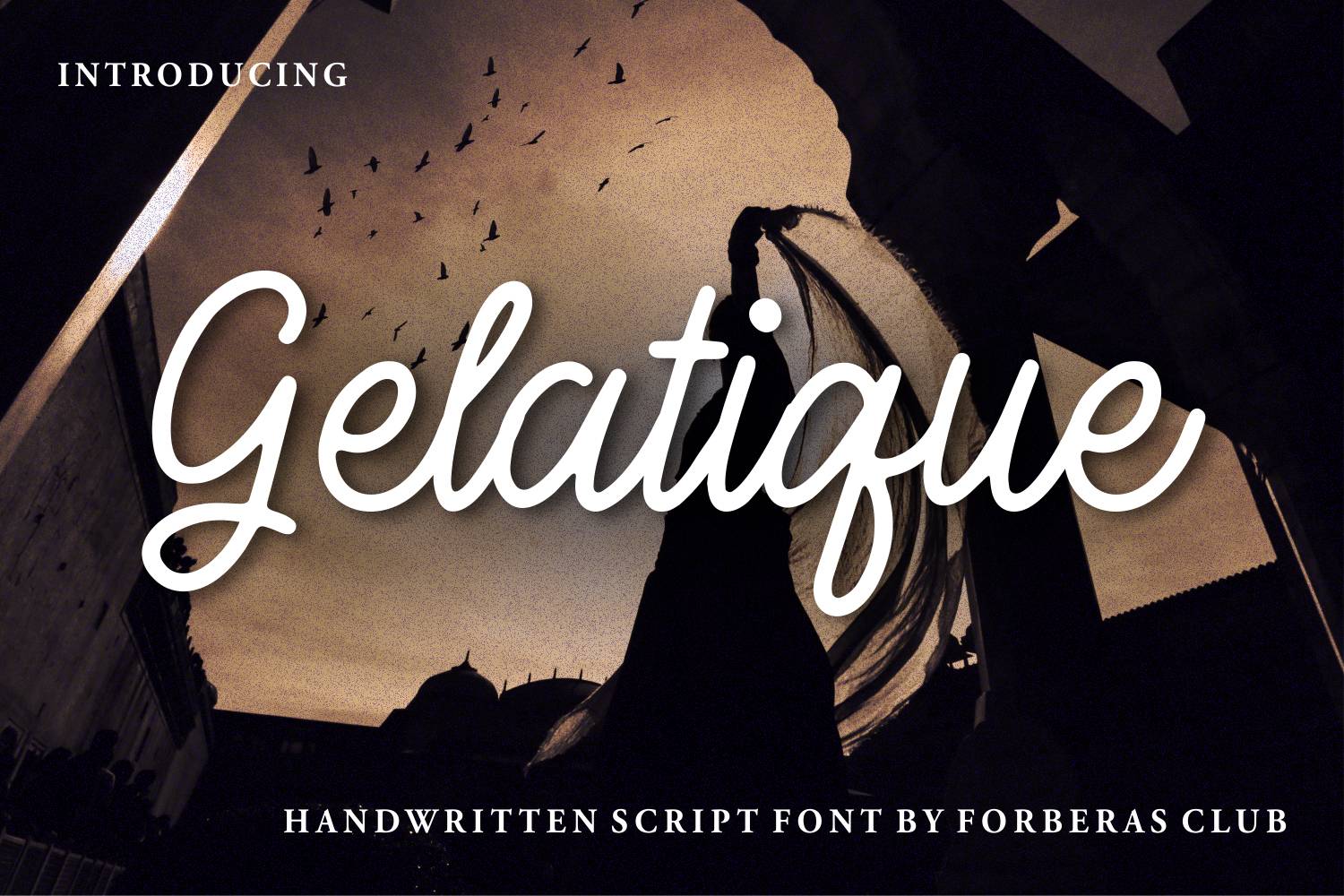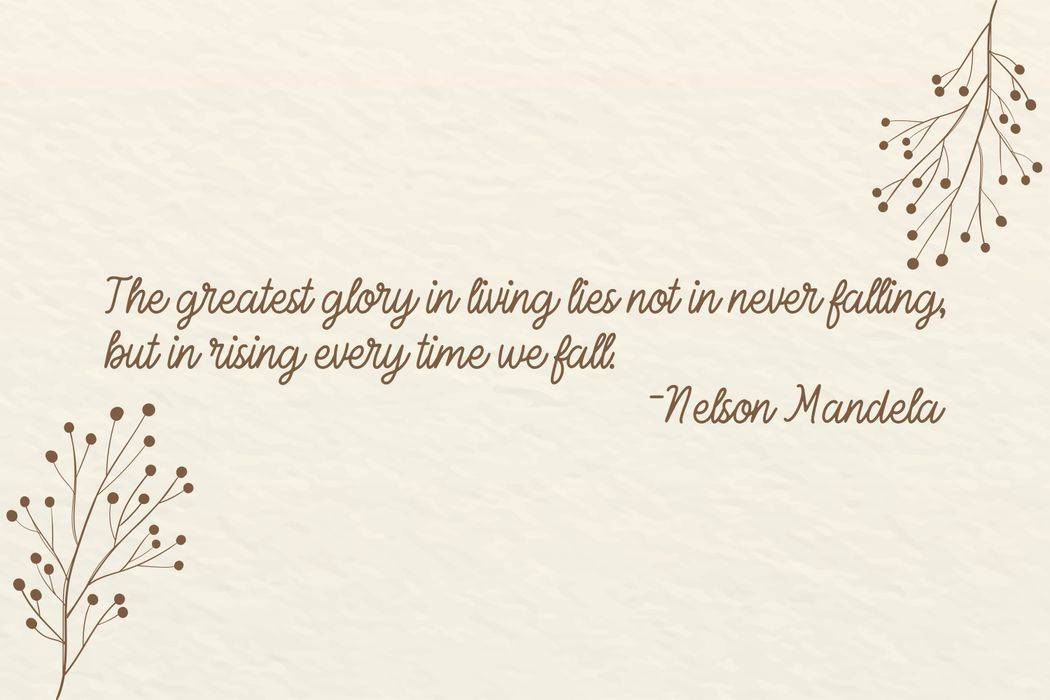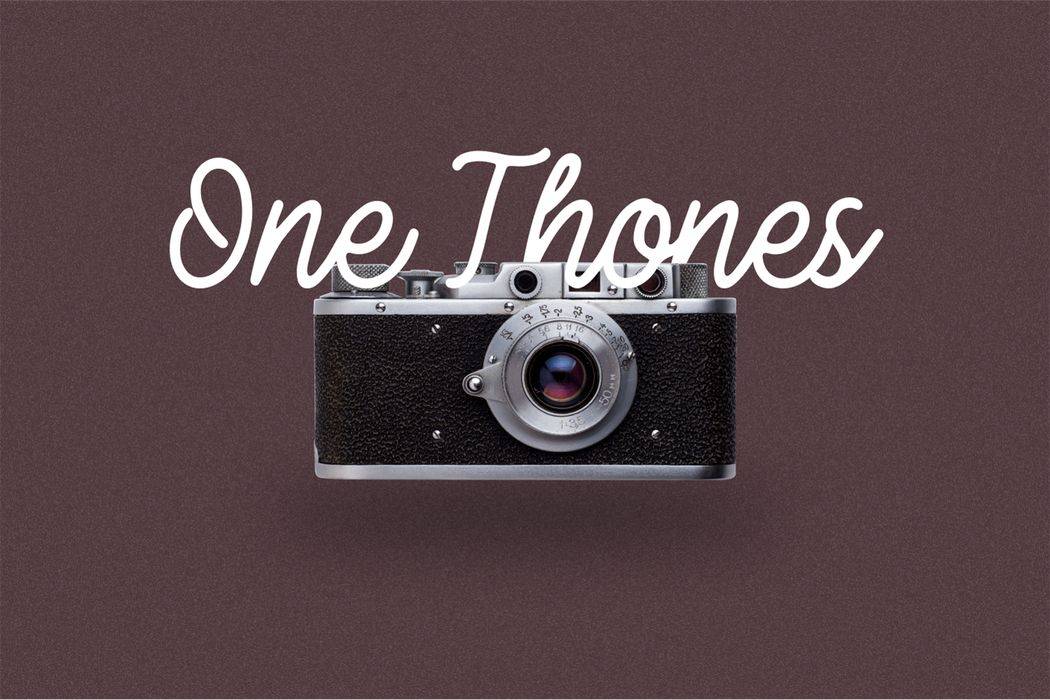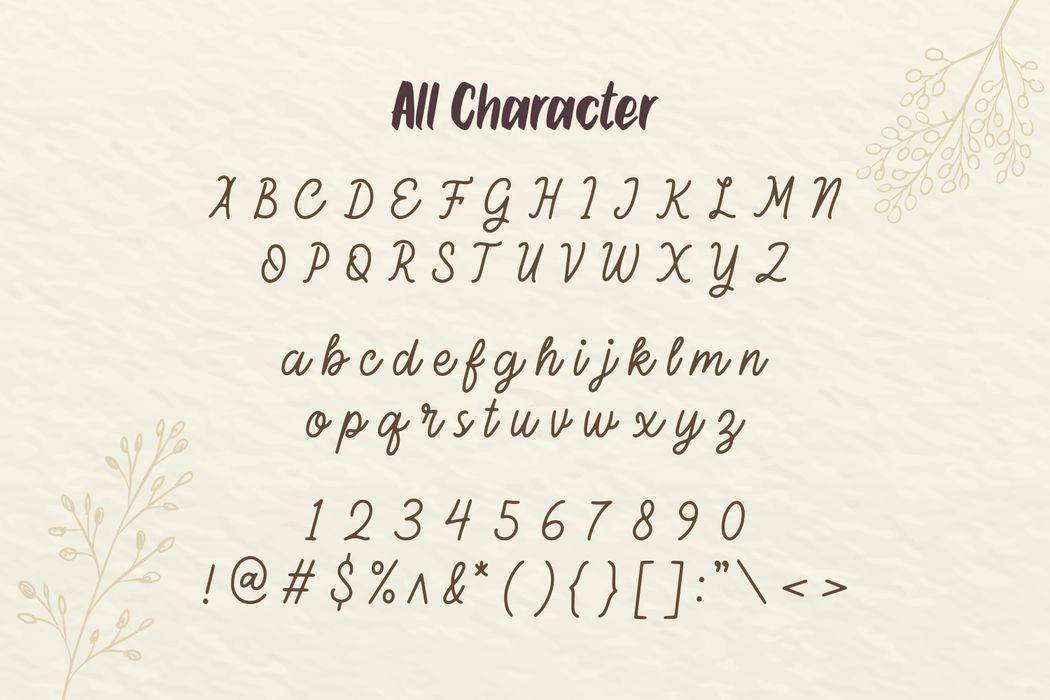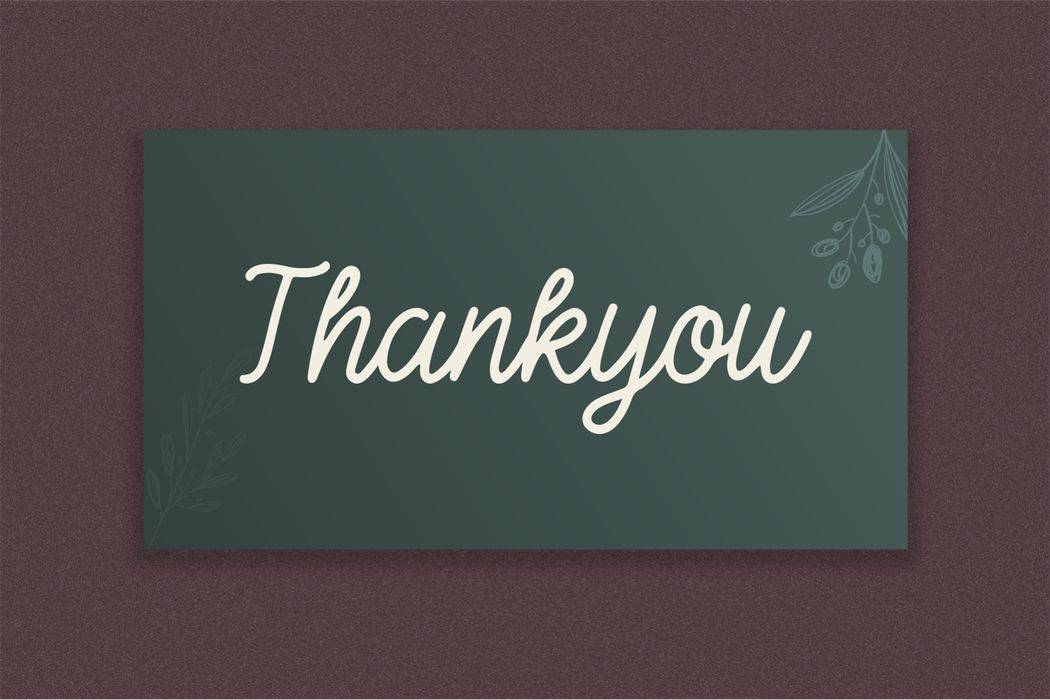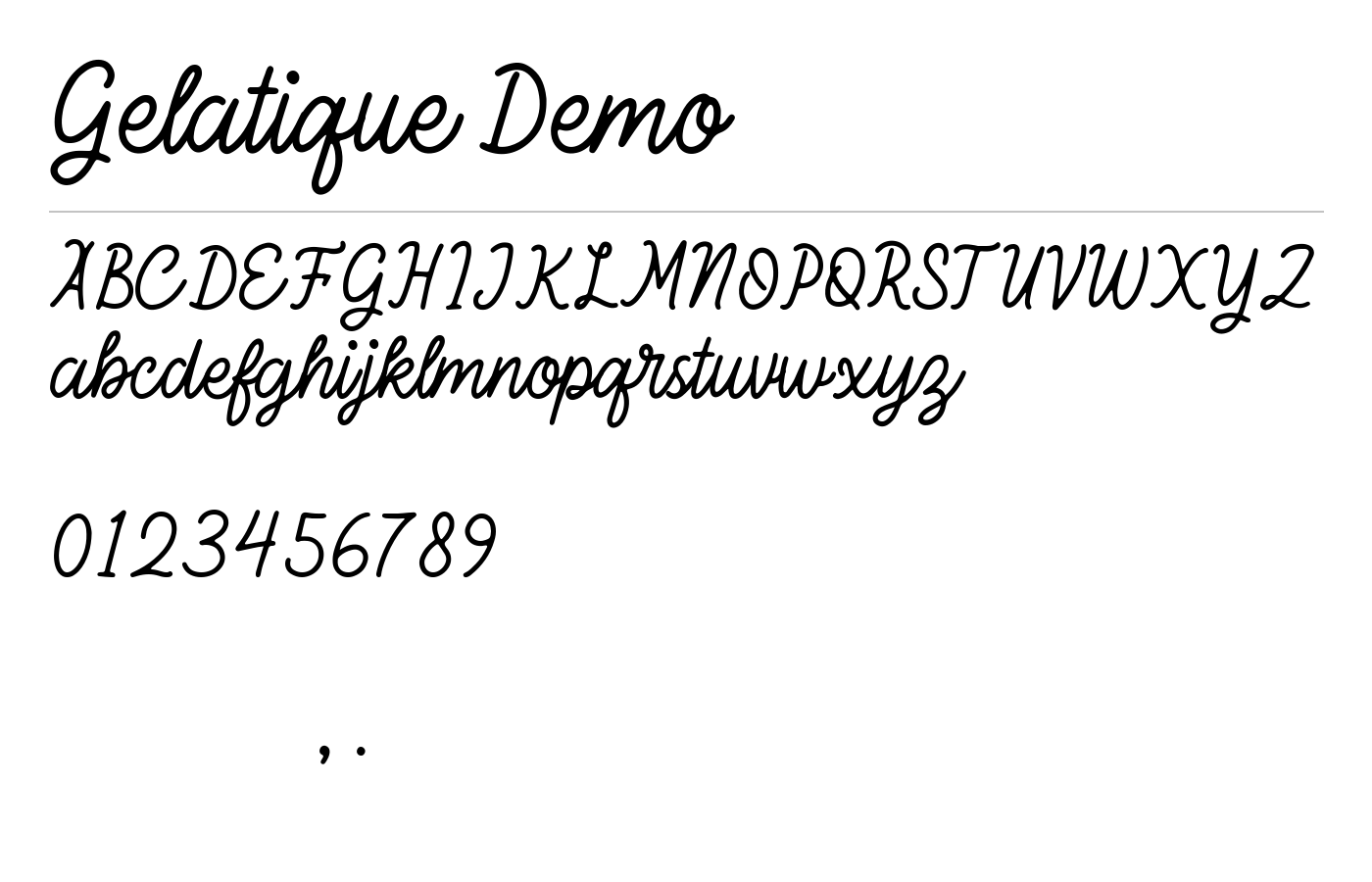
Gelatique is a light, elegant script font with smooth, flowing strokes that resemble casual handwriting. Its friendly and approachable style makes it ideal for branding, invitations, and creative projects that seek a personal yet polished touch. With its clear letterforms and moderate spacing, it works well for both headlines and short passages, adding charm without sacrificing readability.
Gelatique Font
About Gelatique Font
| Font family | Gelatique Font |
| Release date | 2021-08-24 |
| Designer | Forberas Club |